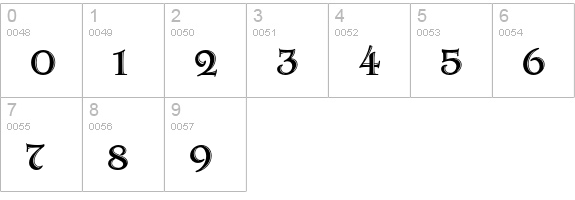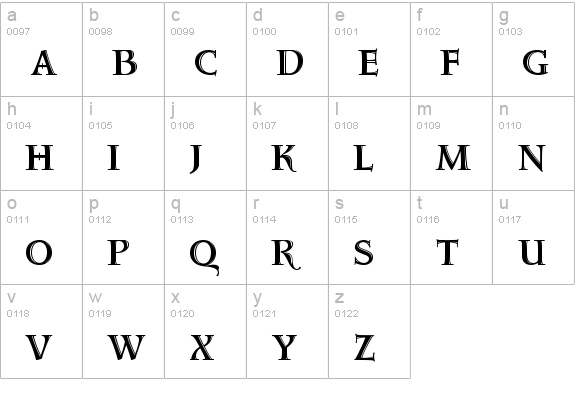
AquitaineInitialsICG Font Details
AquitaineInitialsICG font is a stunning display typeface that exudes elegance and sophistication. With its intricate details and classic design, this font is perfect for adding a touch of luxury to your projects. The ornate initials and decorative elements make AquitaineInitialsICG font a standout choice for invitations, branding, and other creative endeavors. What sets AquitaineInitialsICG font apart is that it is not only beautiful but also completely free to use. Whether you're a designer, a hobbyist, or anyone in need of a high-quality font, AquitaineInitialsICG font is freely available to download at FontsMarket.com. Take advantage of this exquisite typeface to elevate your designs and make a lasting impression.